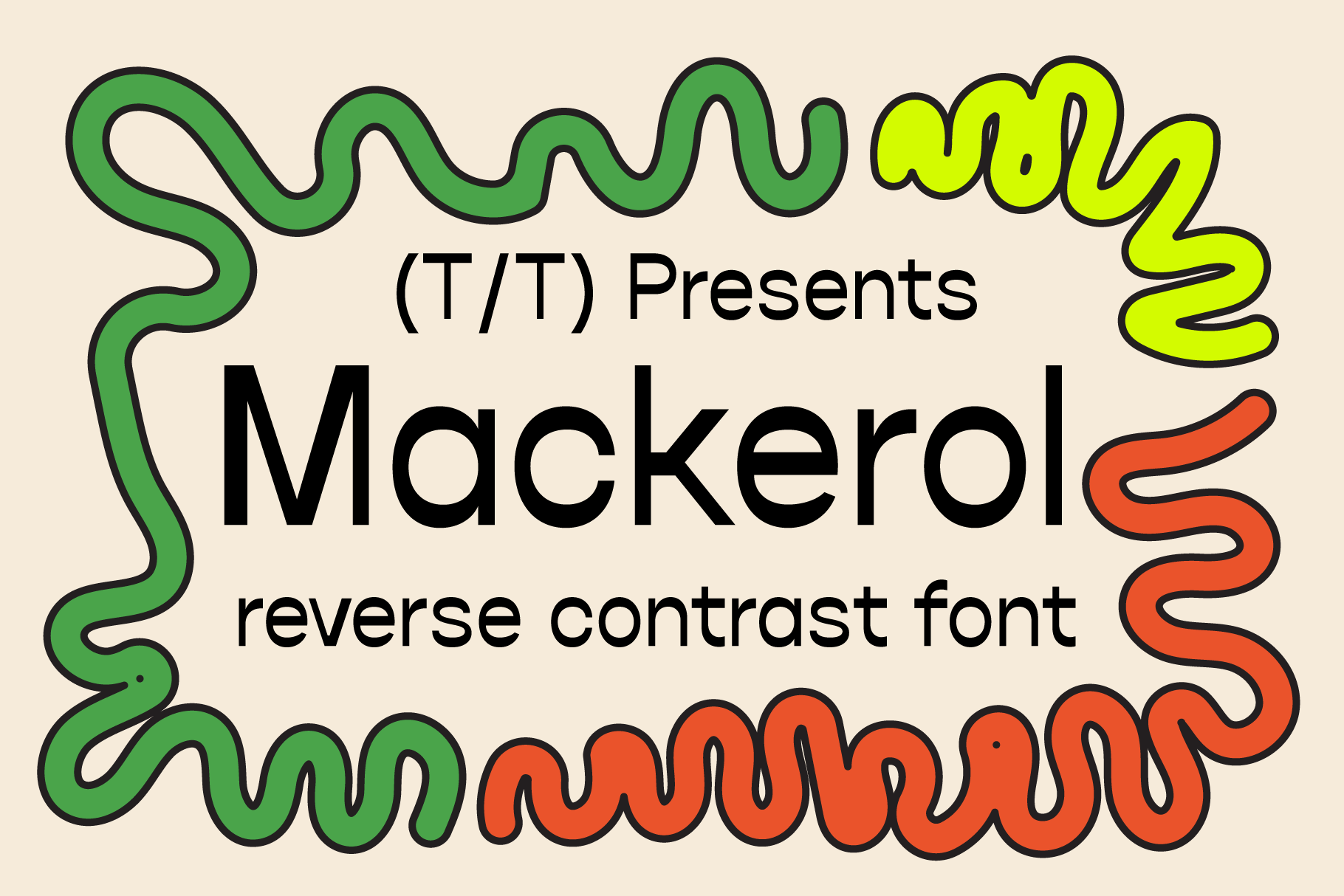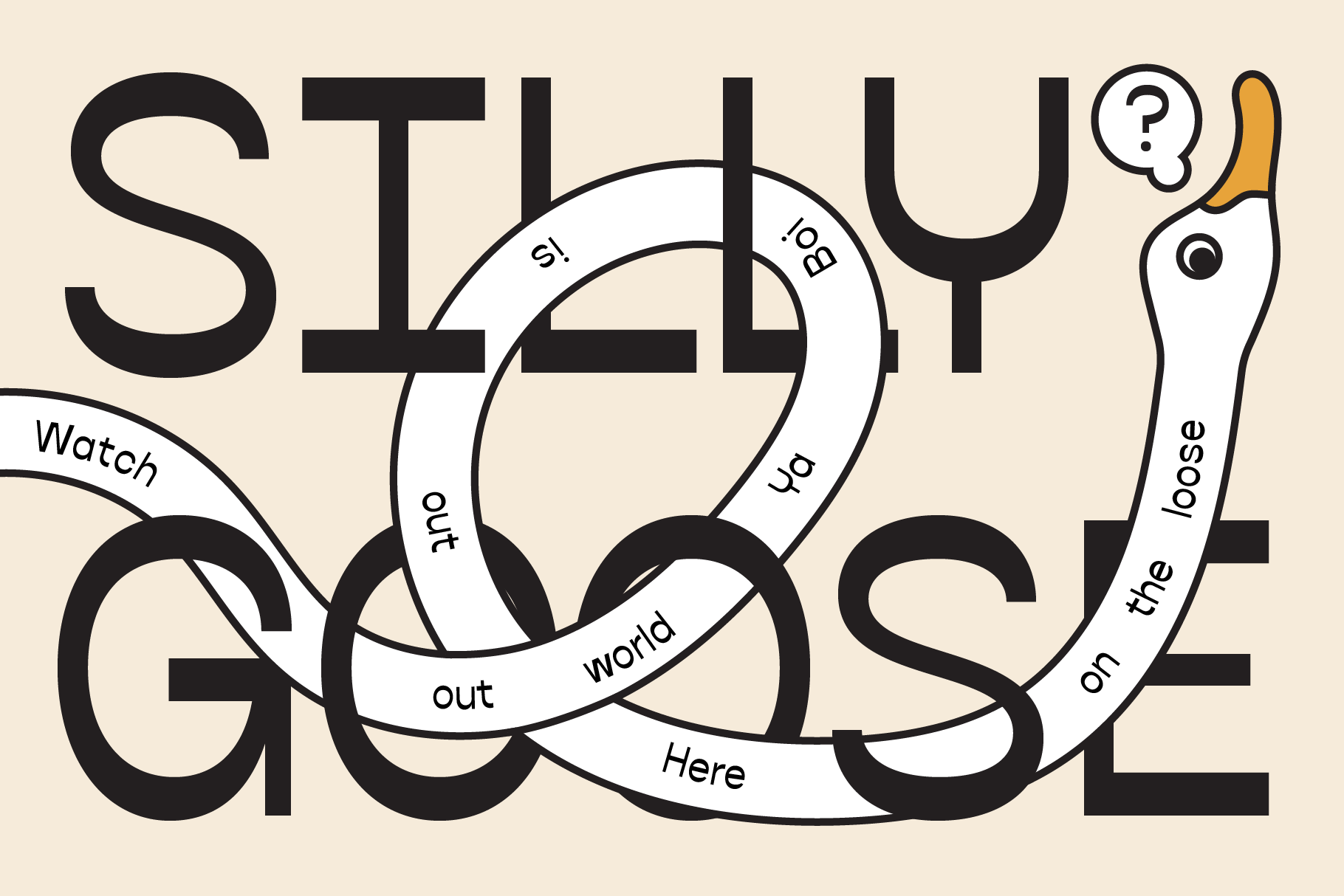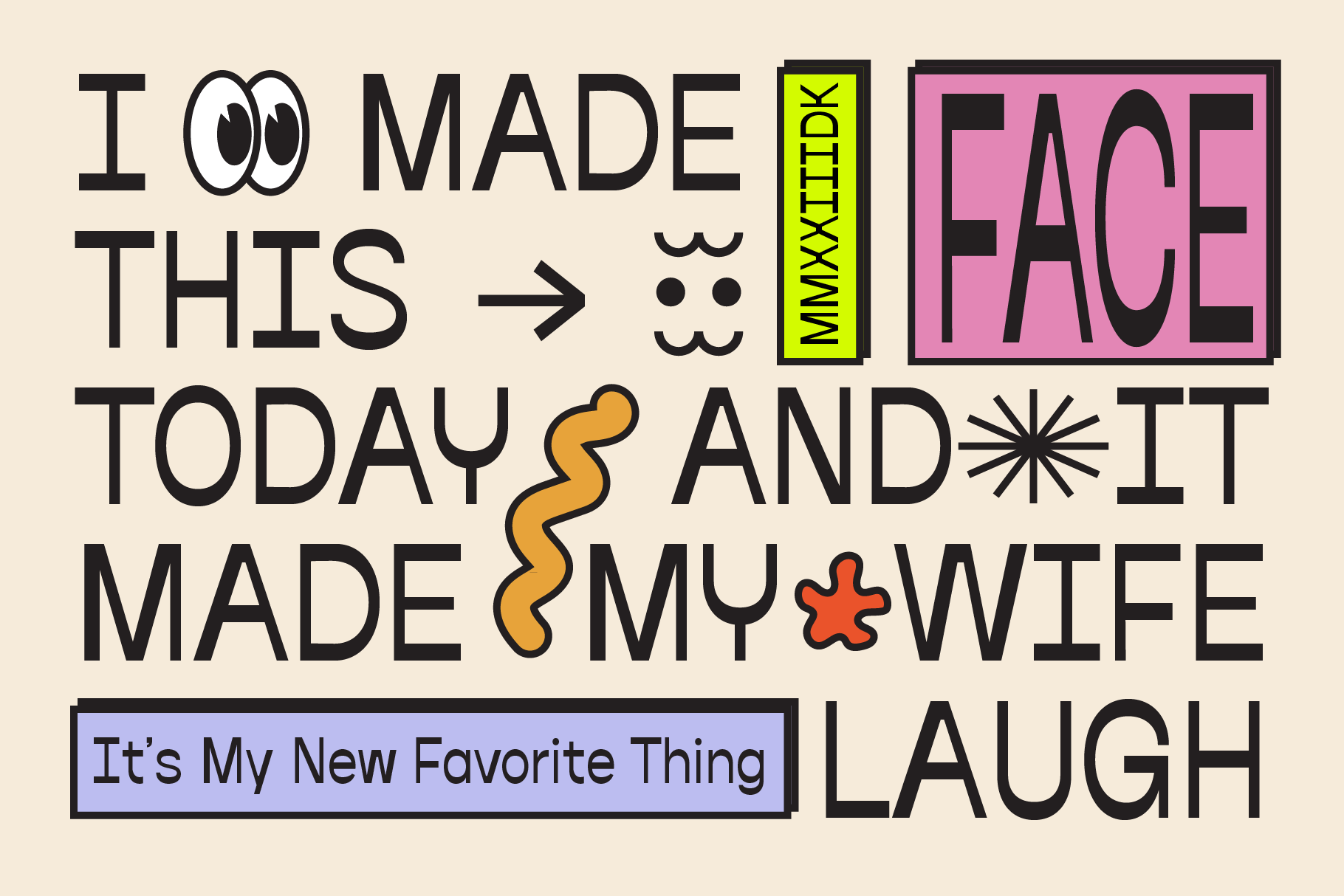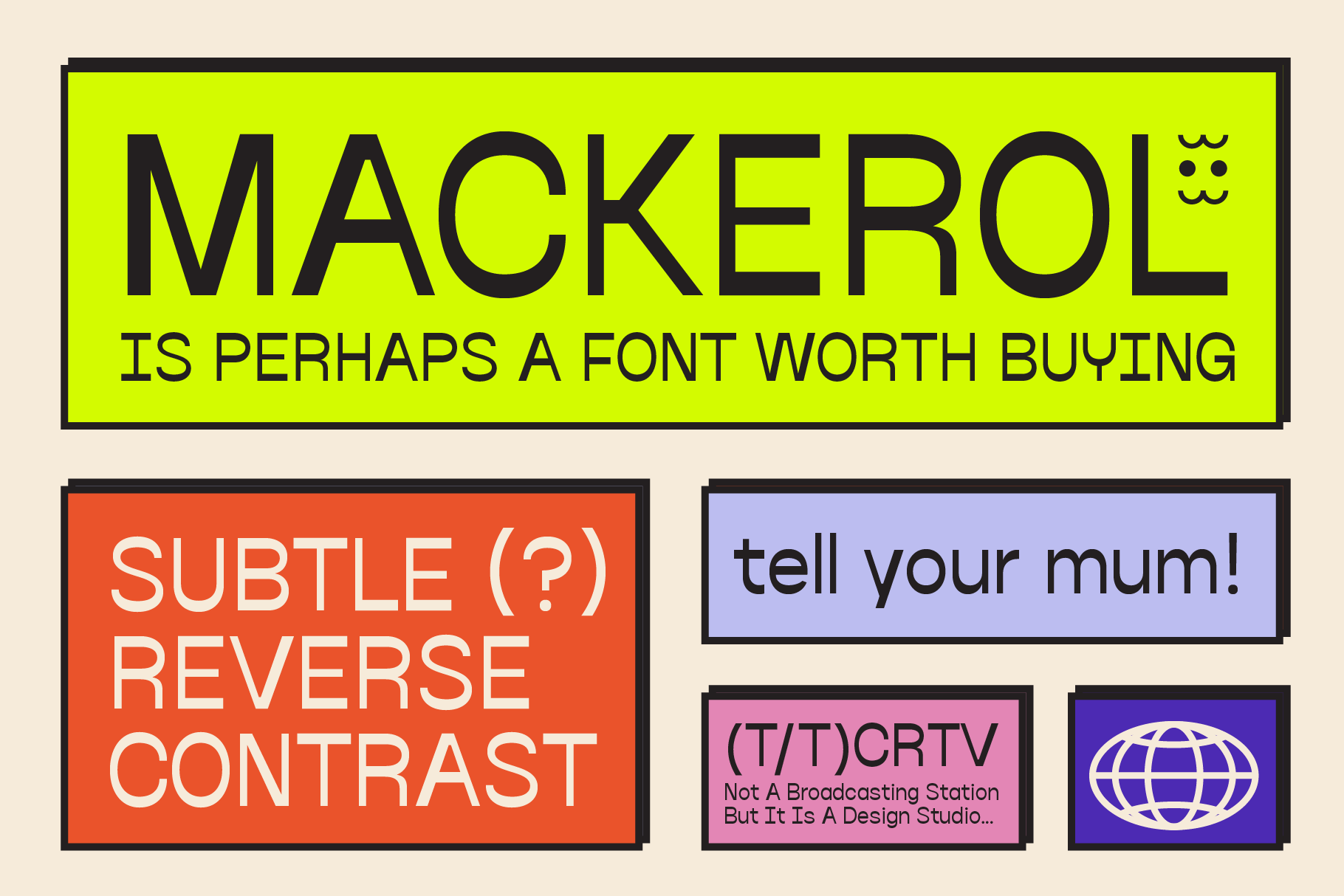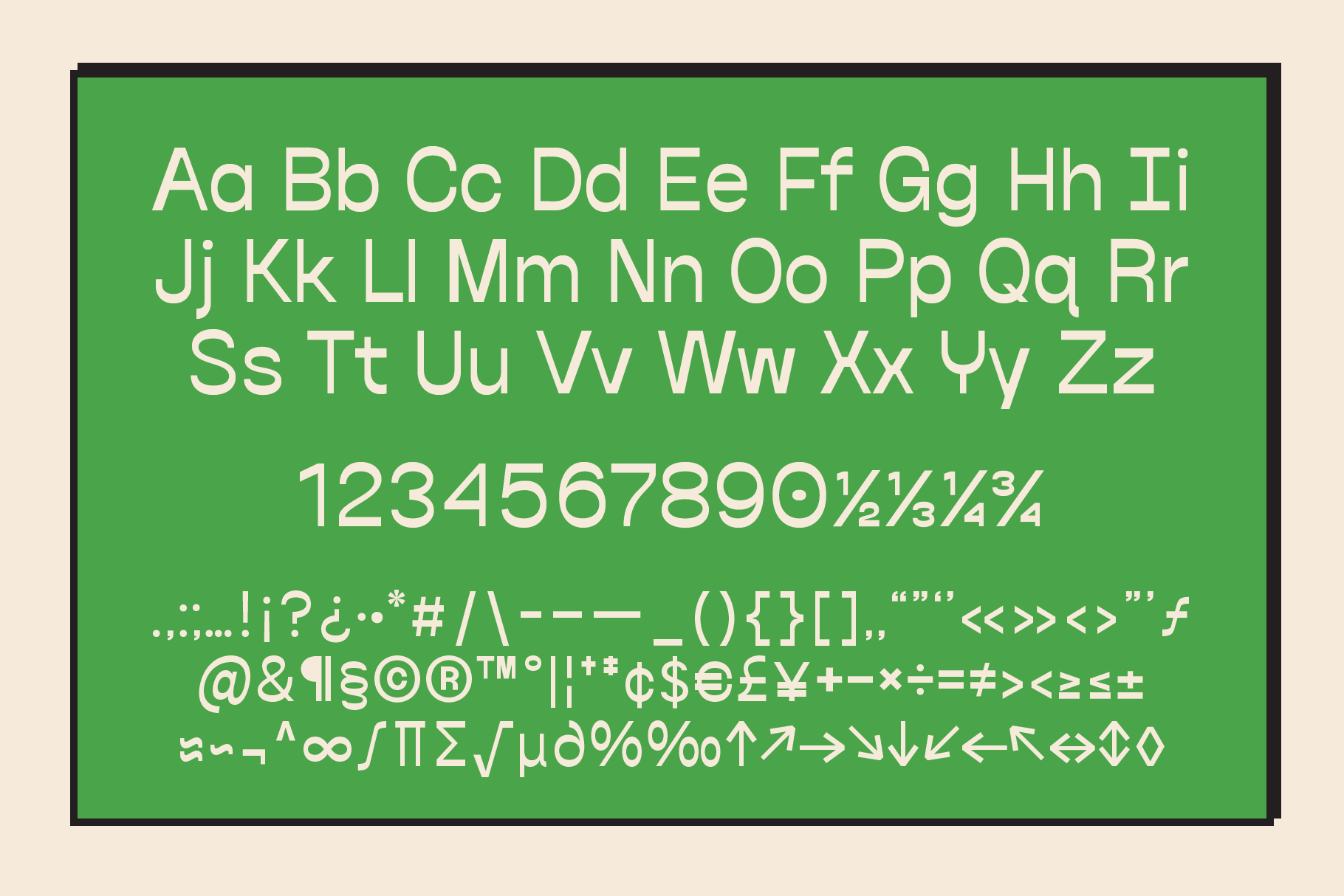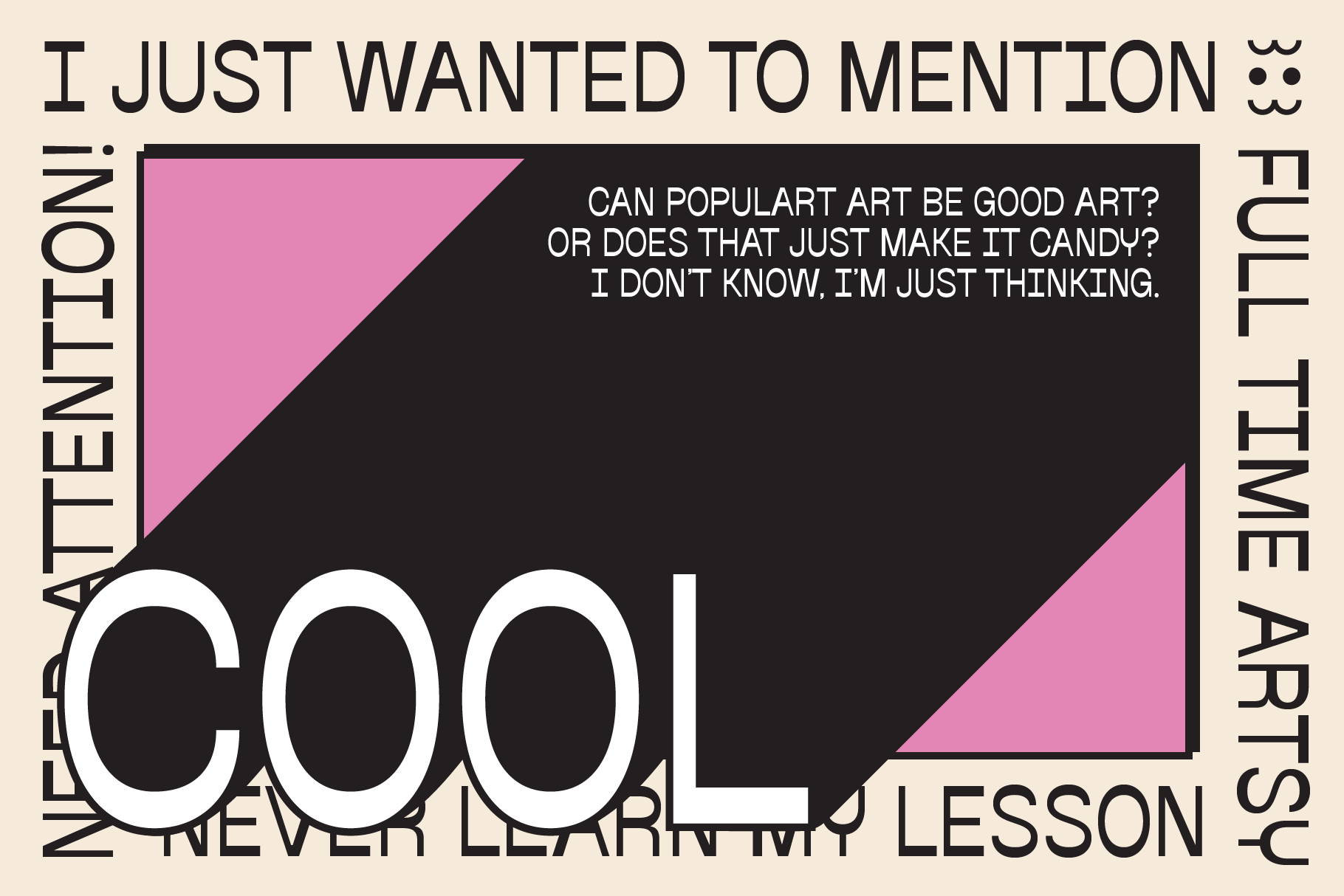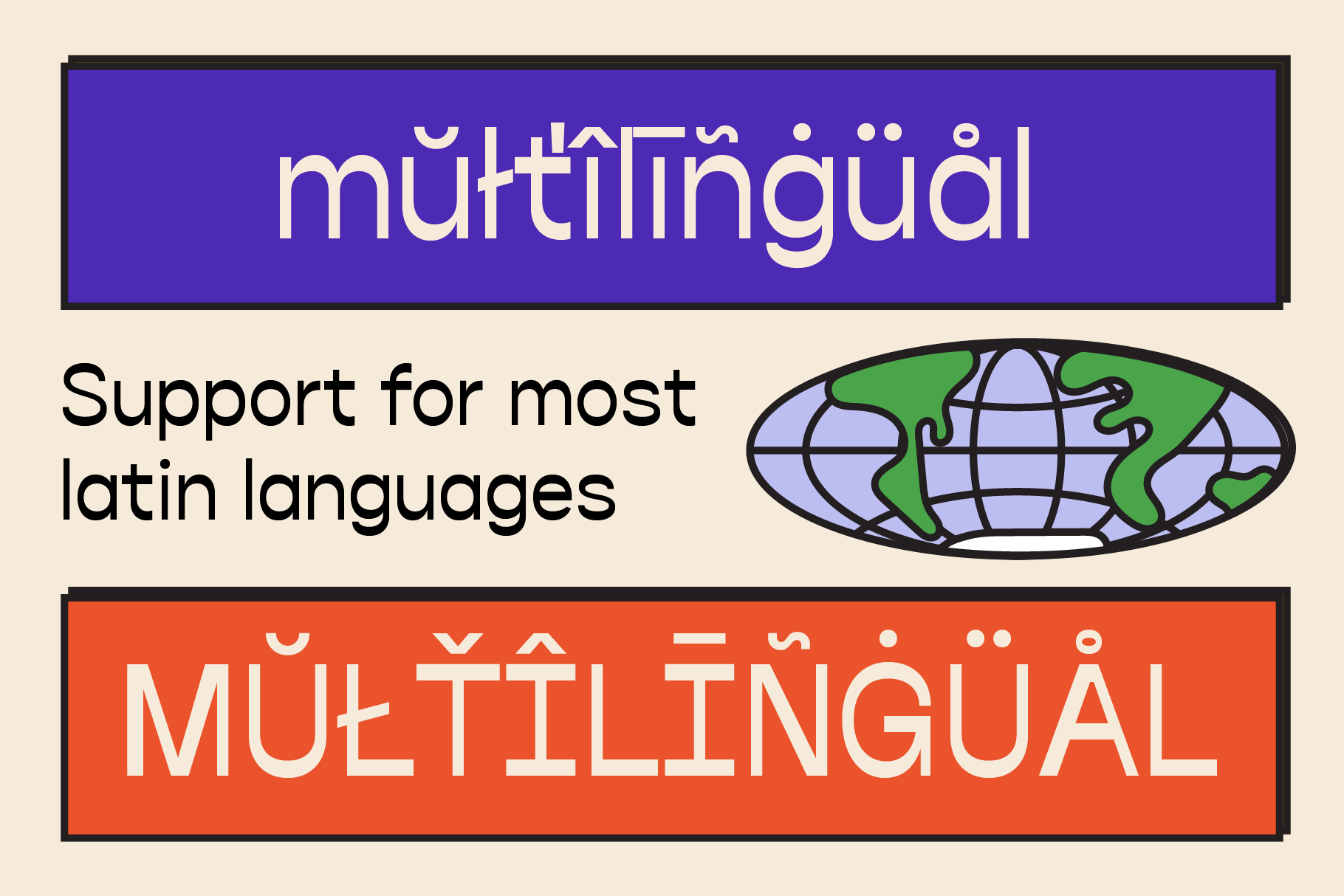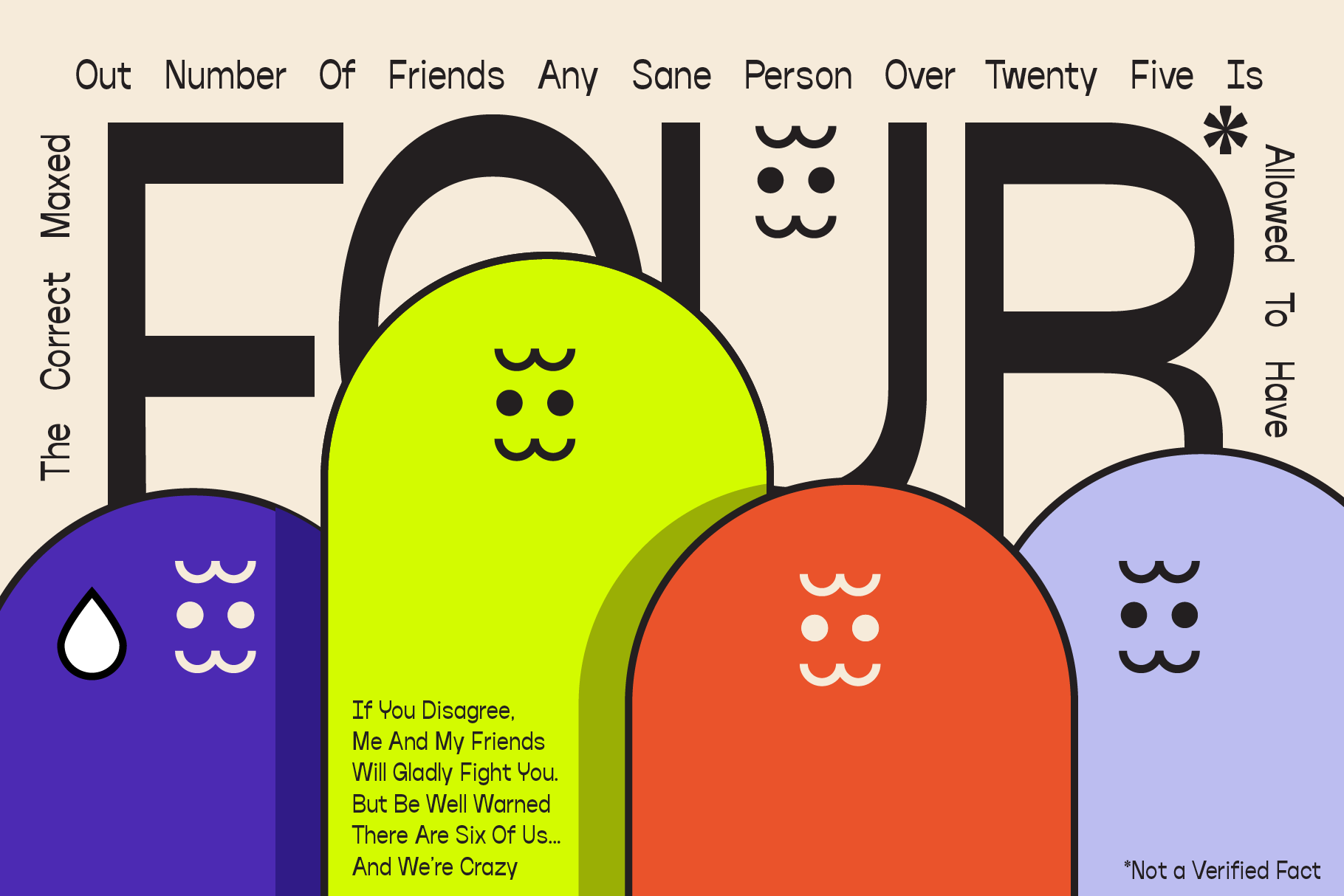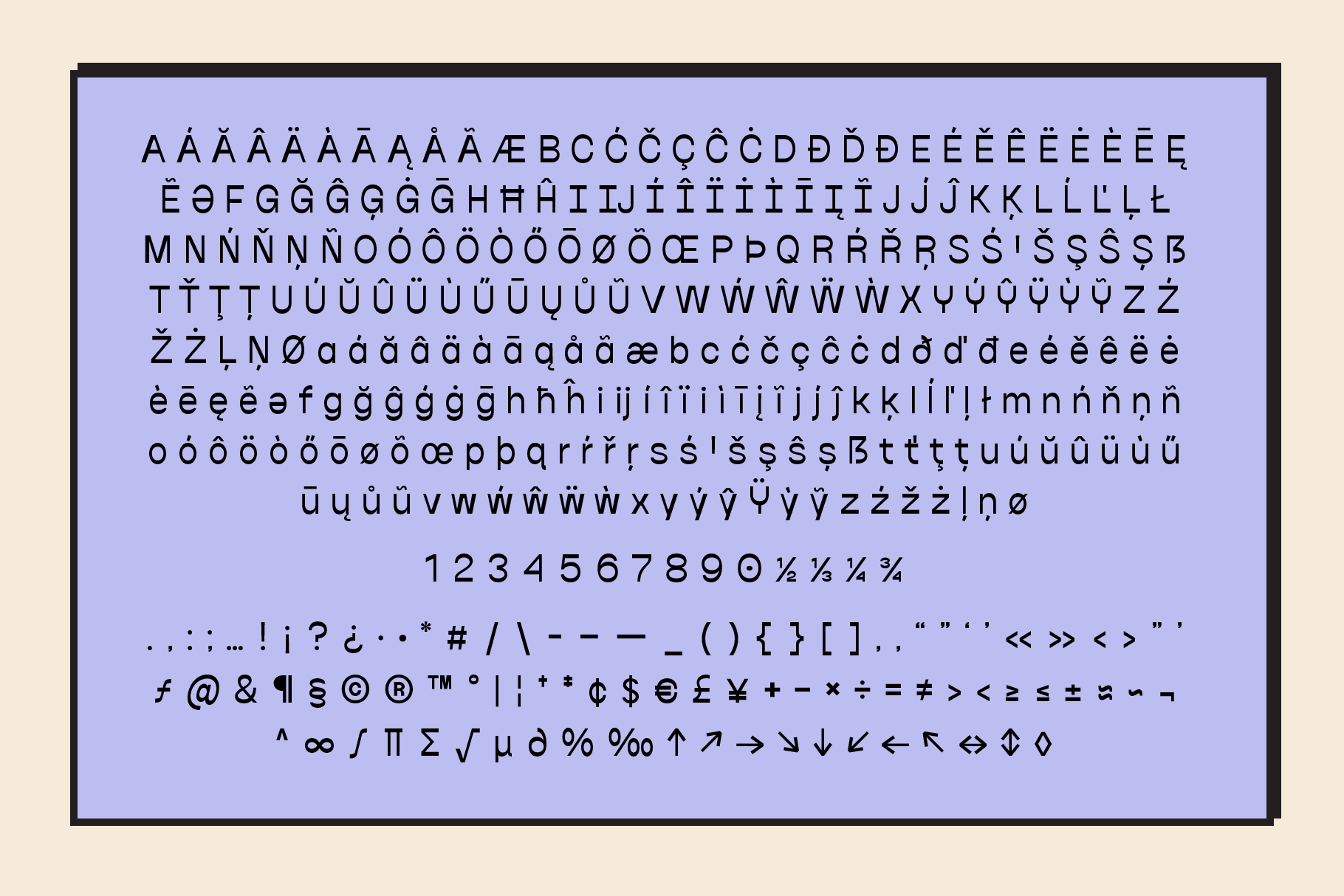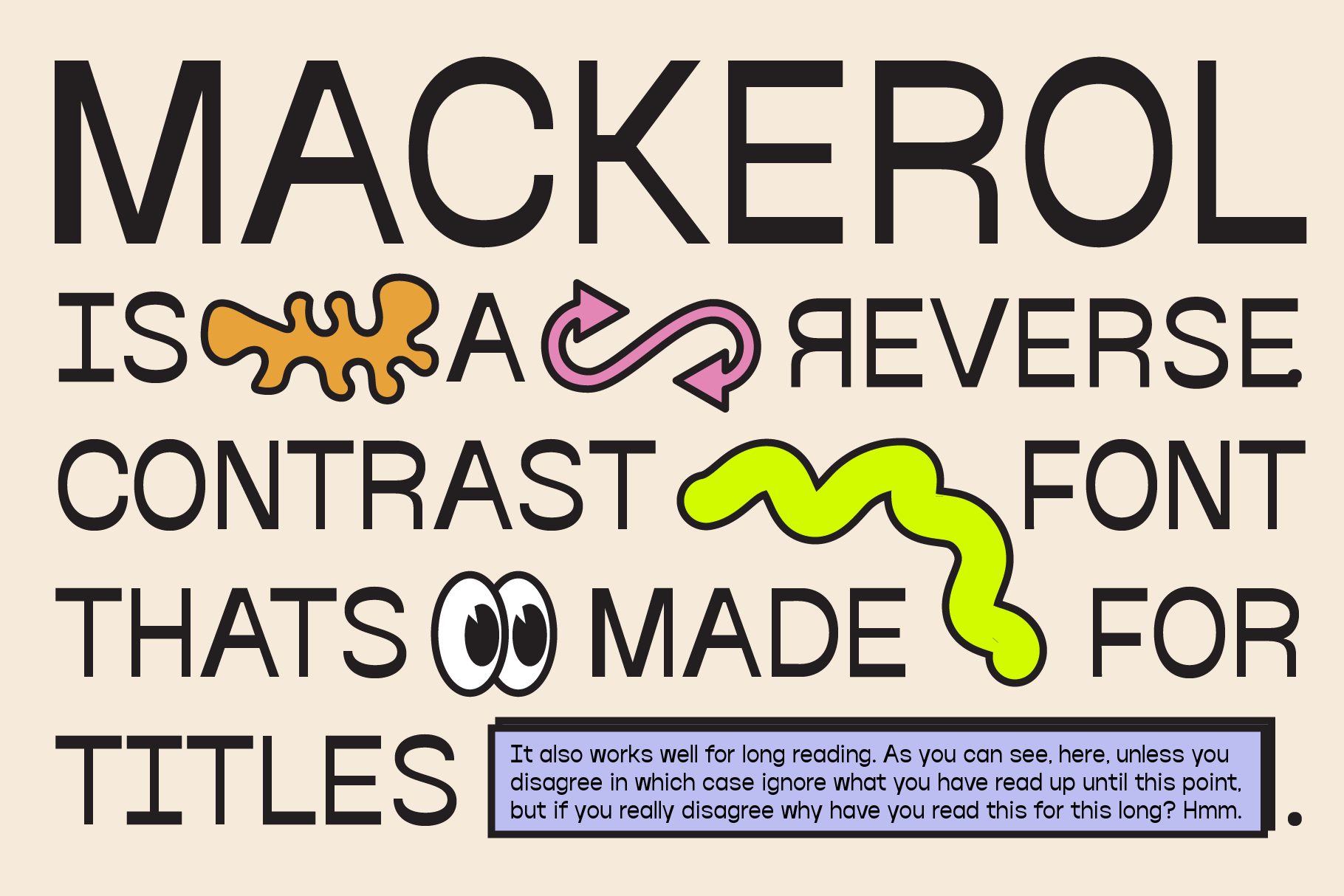
Mackerol - Bold Reverse Contrast Display Font
Mackerol is a bold reverse-contrast display font that flips the usual stroke logic, running thick strokes through the bowls and thin cuts through the stems for a squat, top-heavy stance. The construction keeps a slightly cartoonish, hand-marker rhythm, so headlines land with a playful thud instead of a formal one.
Mackerol works loudest in short settings — single words, stacked lines, logotypes — where the weight swap has room to read clearly. Use it for branding and logos, poster and gig-flyer titles, streetwear and podcast graphics, magazine headlines, social story headers, quote cards, merch prints, packaging labels, and event signage.
• uppercase & lowercase;
• numerals, punctuation & symbols;
• multilingual support